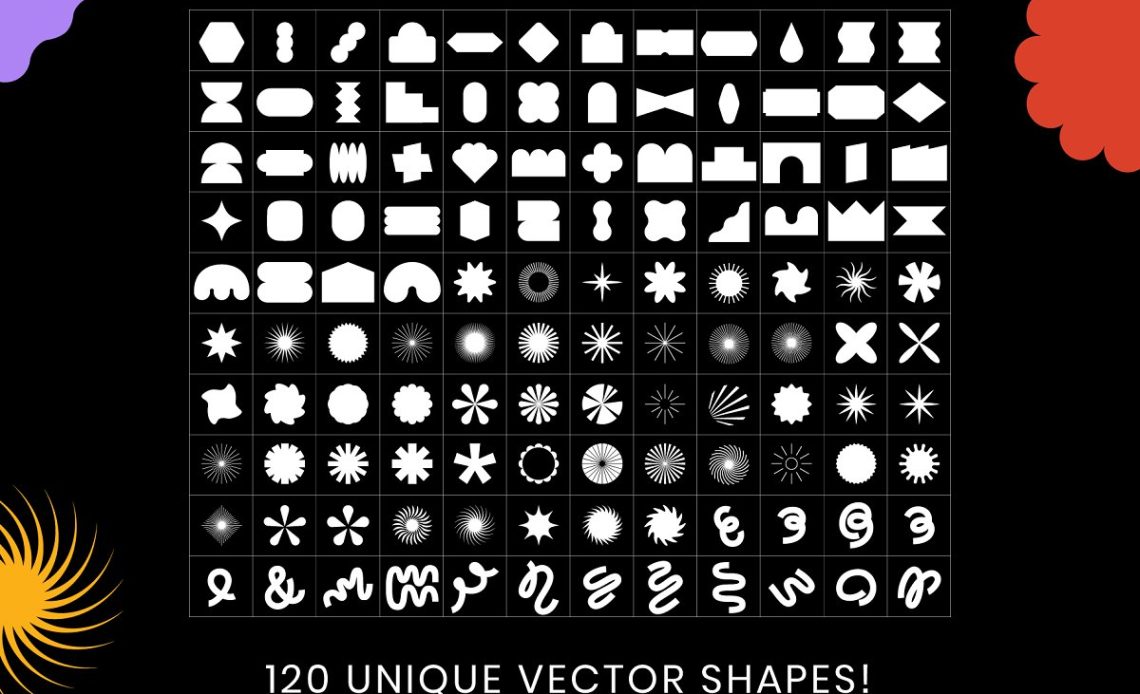
Introducing Designer Dingbats Font, a symbol font family created by Libbie Bischoff that includes a whopping 120 shapes! Elevate your design game with this versatile font, perfect for branding, packaging, social media, and more.
The glyphs palette or simple typing allows you to easily access the shapes, making it simple to create compositions for any project. The font files don't take up a lot of hard drive space and don't need to be opened separately or upgraded for new apps.
Designer Dingbats Font is perfect for creating bullets, patterns, and brand accents that will set your designs apart. With 120 glyphs total, including 52 shapes, 52 sunbursts, and 16 squiggles, you'll have all the vectors you need to create amazing designs.
With Designer Dingbats Font, you'll be able to up your design game and create stunning compositions for all your branding needs. Don't settle for boring design elements, make your brand stand out with this amazing symbol font family.